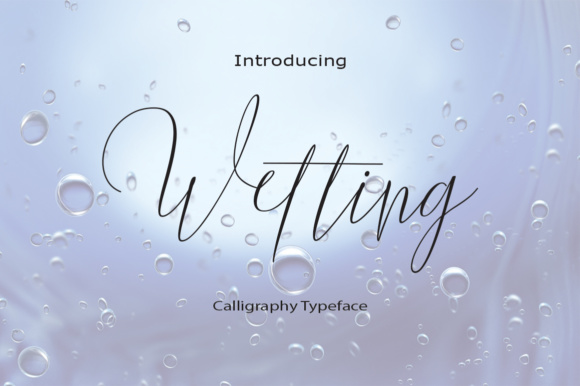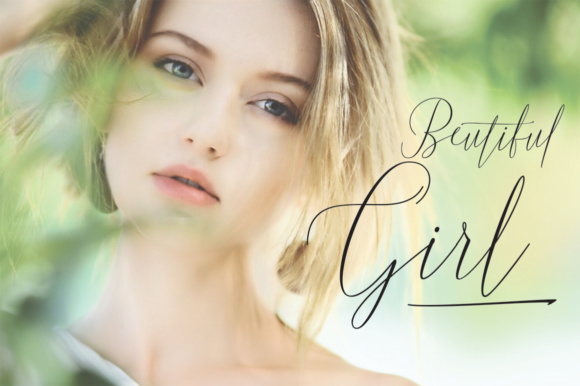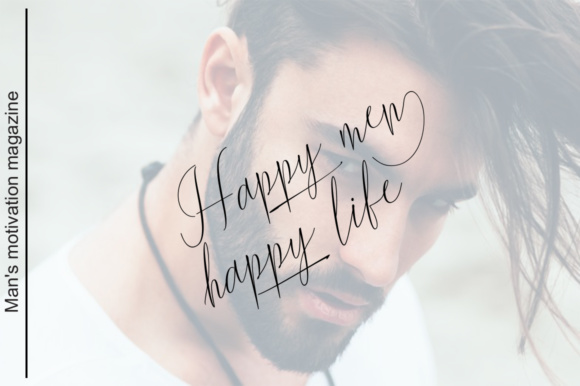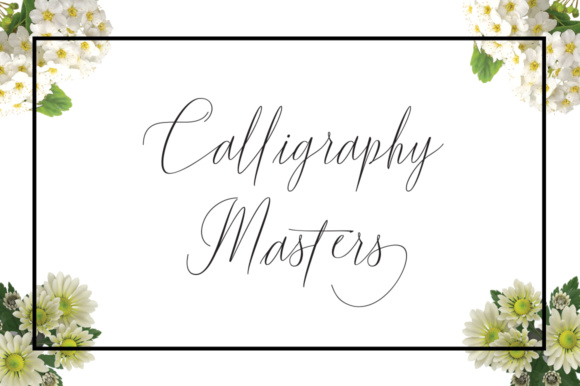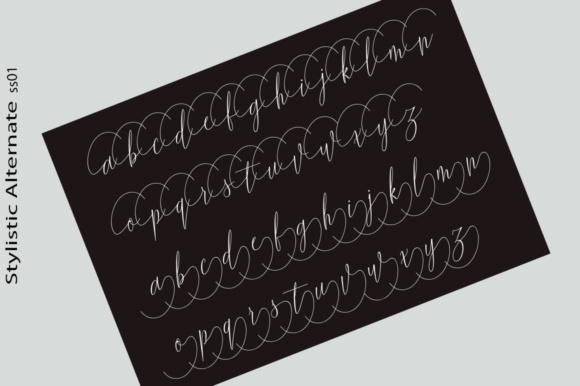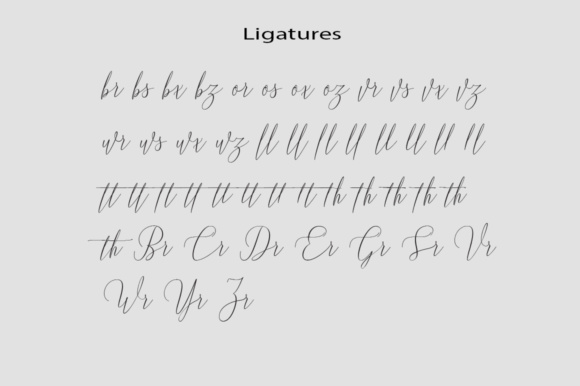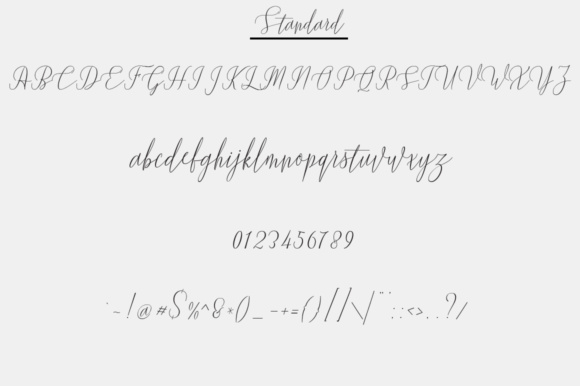
Wetting Font
About Wetting Font
Wetting is a design that is purely a result of handwriting. Wetting has a natural characteristic feel. With it’s beautiful swashes and glyph’s, Wetting is perfect for invitations, signatures, blogs, social media, business cards, product brands and much more!